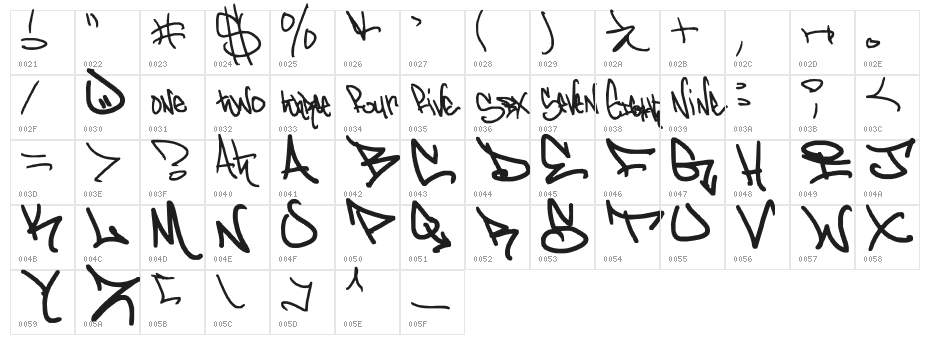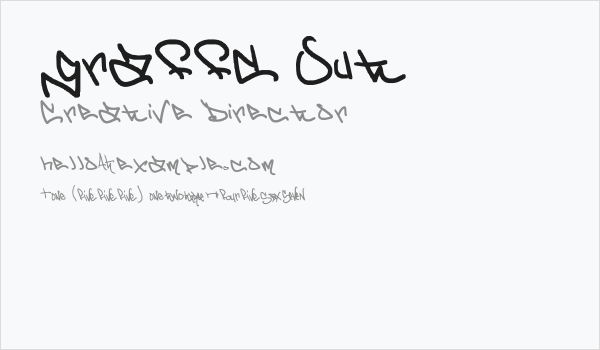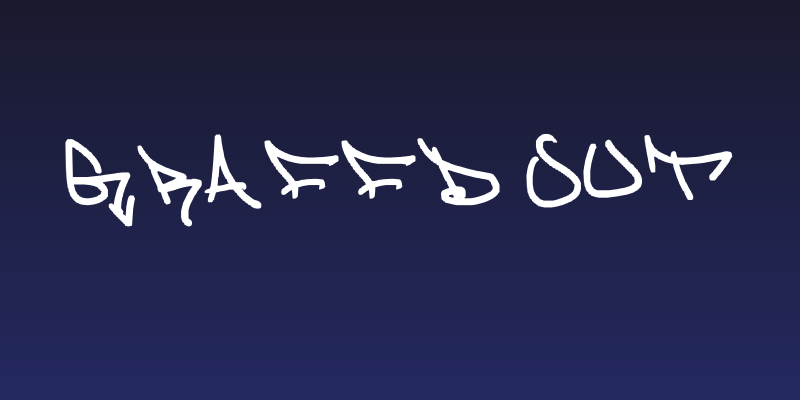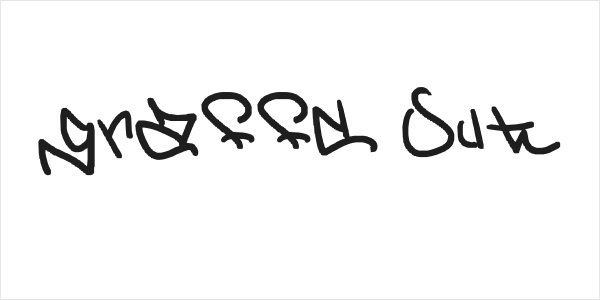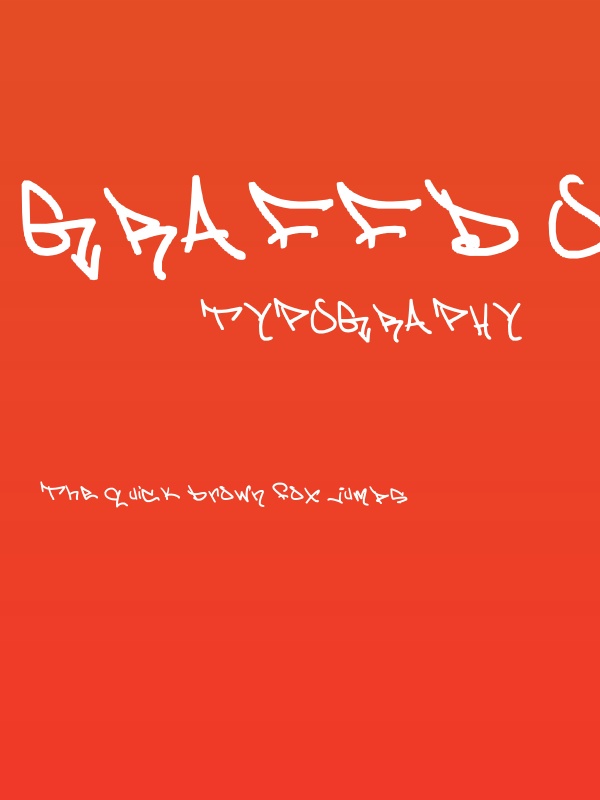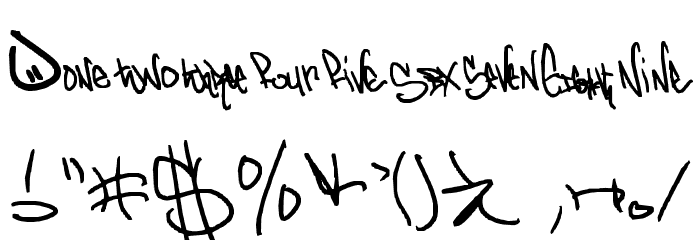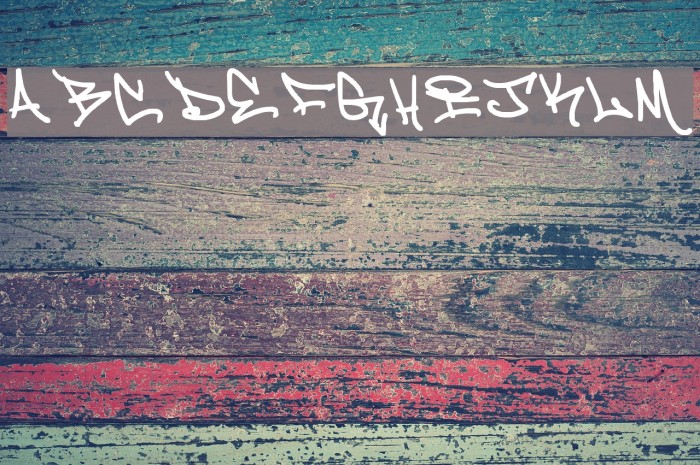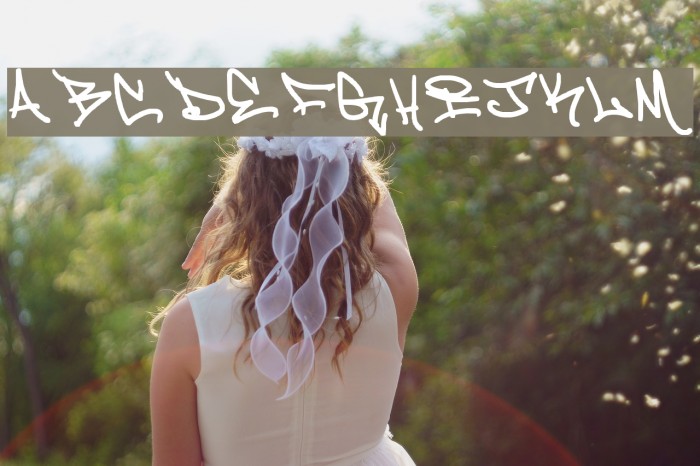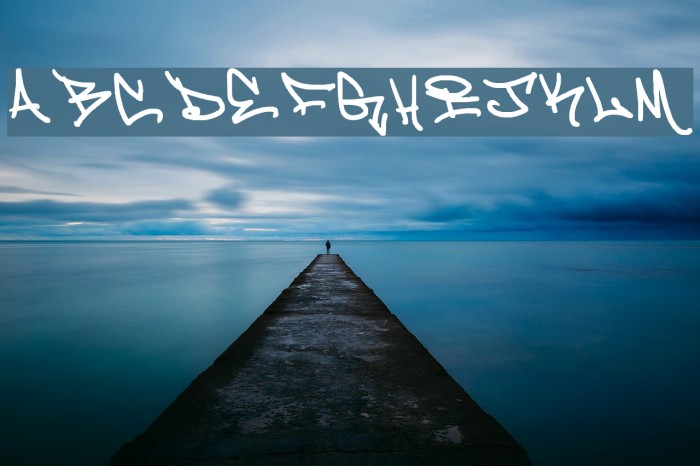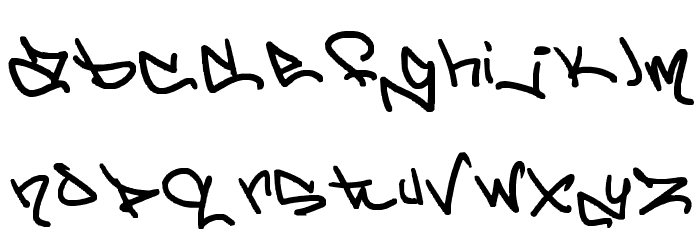
graffd Out Font
graffd Out Description
This font exhibits a highly stylized, graffiti-inspired design with an edgy and urban aesthetic. The characters are bold and dynamic, featuring sharp angles and fluid strokes that mimic the spontaneous and expressive nature of street art. The uppercase and lowercase letters maintain a consistent style, with exaggerated curves and unique forms that create a sense of movement. Numbers and special characters follow the same artistic approach, adding to the font's cohesive look. This font is ideal for projects seeking a rebellious and contemporary vibe.
GRAFFD-OUT UPPERCASE
GRAFFD-OUT LOWERCASE
GRAFFD-OUT OTHER CHARS
| Overall Style | Modern, Urban, Edgy |
| Use Case | Logos, Posters, Album Covers |
| Proposed Projects | Perfect for street art-themed designs, urban branding, edgy posters, and music album covers. |